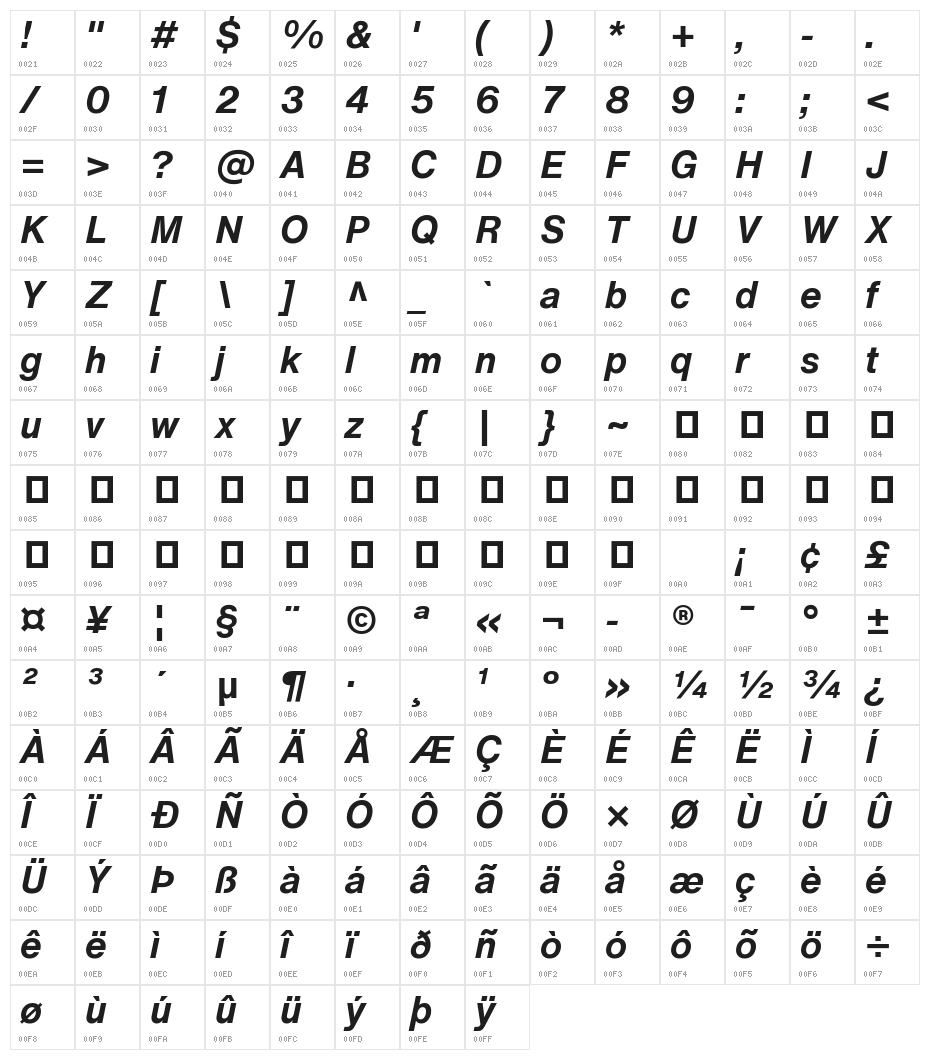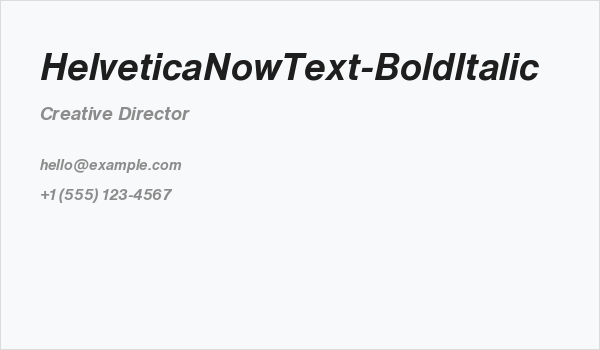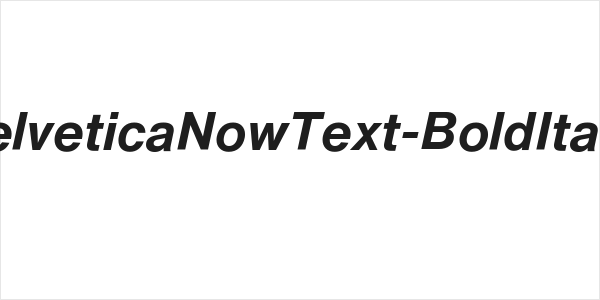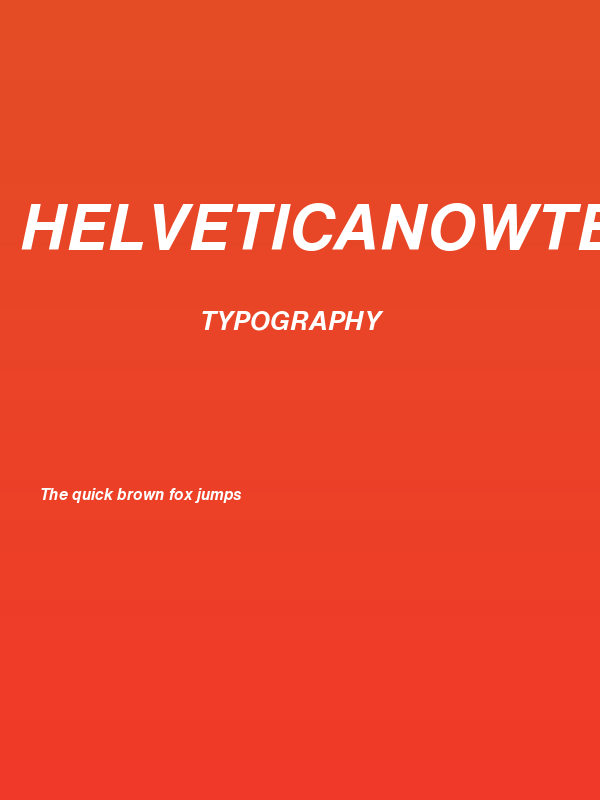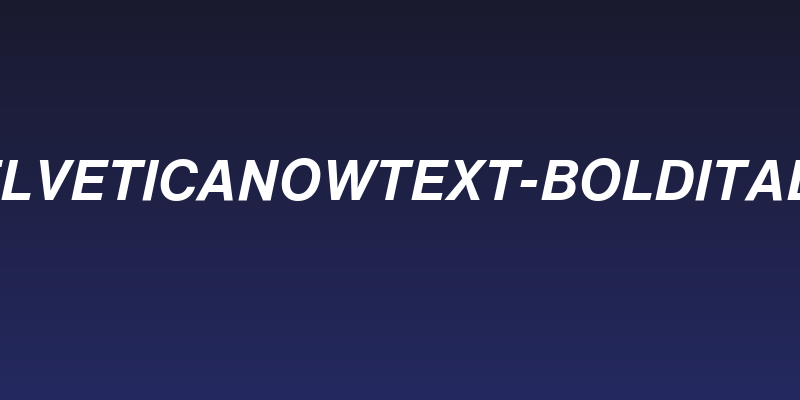
HelveticaNowText-BoldItalic Font
HelveticaNowText-BoldItalic Description
This font exhibits a clean and modern aesthetic with a bold and italicized style. The characters are well-defined with a consistent stroke width, providing a strong visual impact. The uppercase and lowercase letters maintain a uniform appearance, enhancing readability. The numerals are clear and distinct, making them suitable for various applications. Special characters are included, adding versatility to the font's use. The overall design is sleek and contemporary, making it ideal for modern design projects.
| Proposed Projects | Ideal for branding, advertising, headlines, and digital media where a strong, modern impression is desired. |